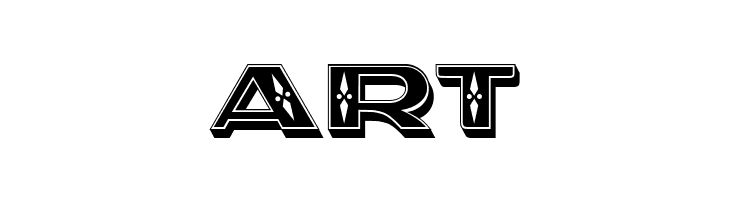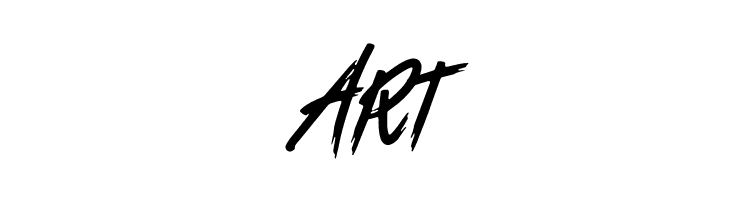
A bold, hand-brushed script font with dynamic strokes and a spontaneous feel.
A graceful script font with fluid strokes and high contrast, perfect for elegant designs.
A bold, geometric font with a modern, energized style.
A bold, modern font with a decorative, layered design and consistent spacing.
A bold, rugged font with a hand-crafted, distressed appearance.
An elegant, cursive script font with flowing, ornate characters.
An elegant script font with flowing, interconnected letters and ornate flourishes.
A playful, handwritten font with smooth, rounded edges and a casual flow.
A bold, playful font with dynamic slanted characters and creative styling.
A playful, hand-drawn font with tall, narrow characters and a whimsical style.